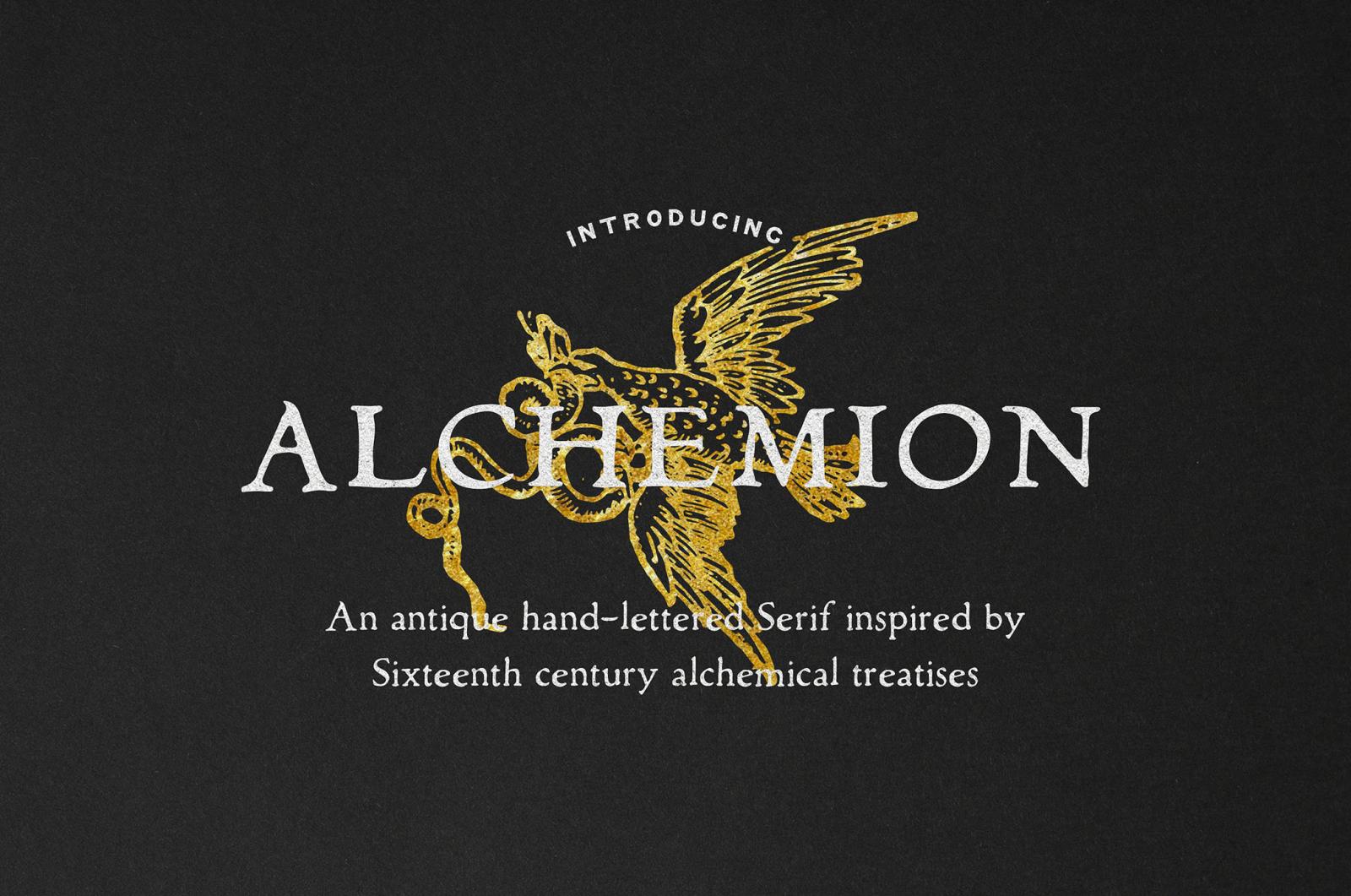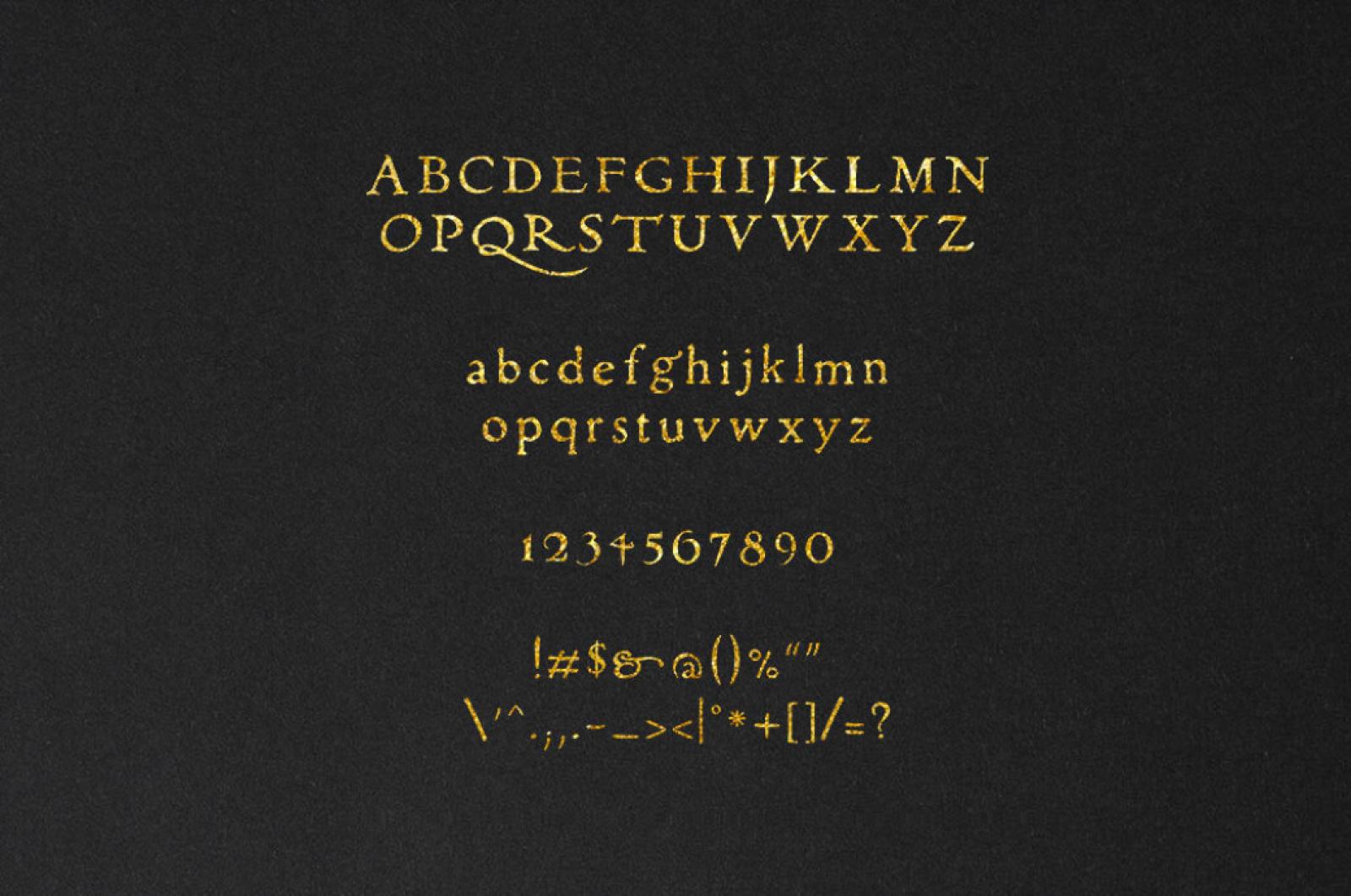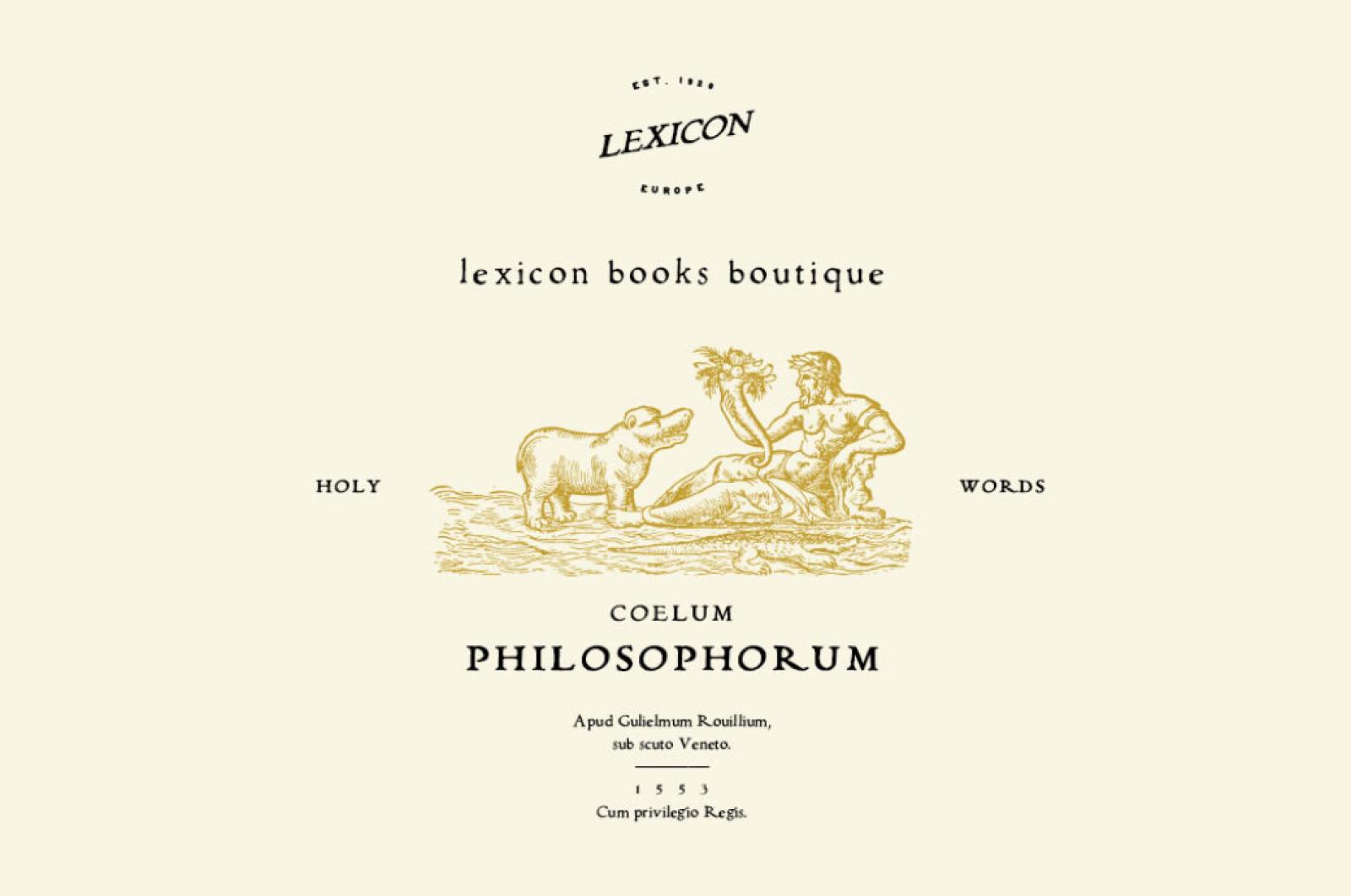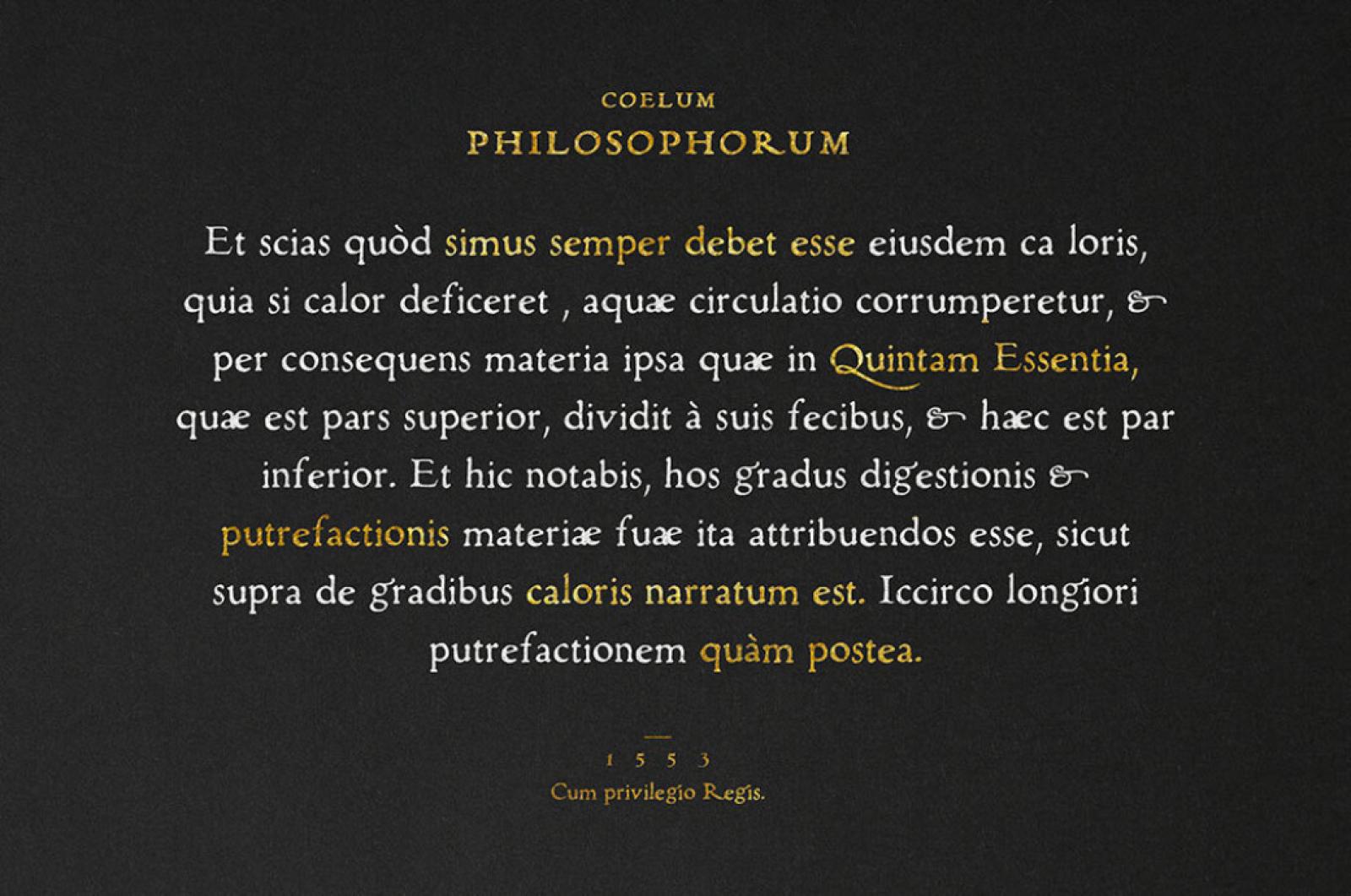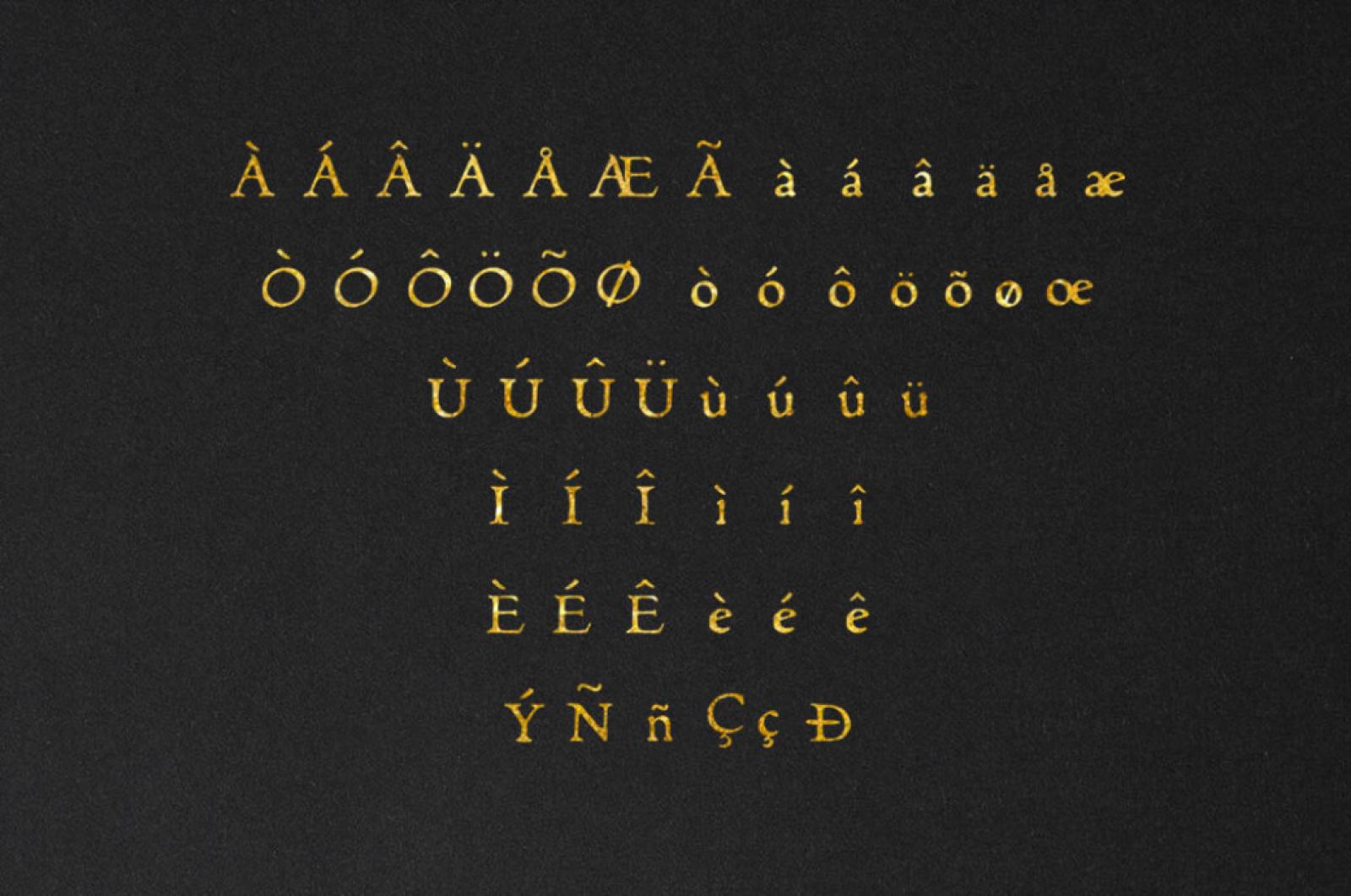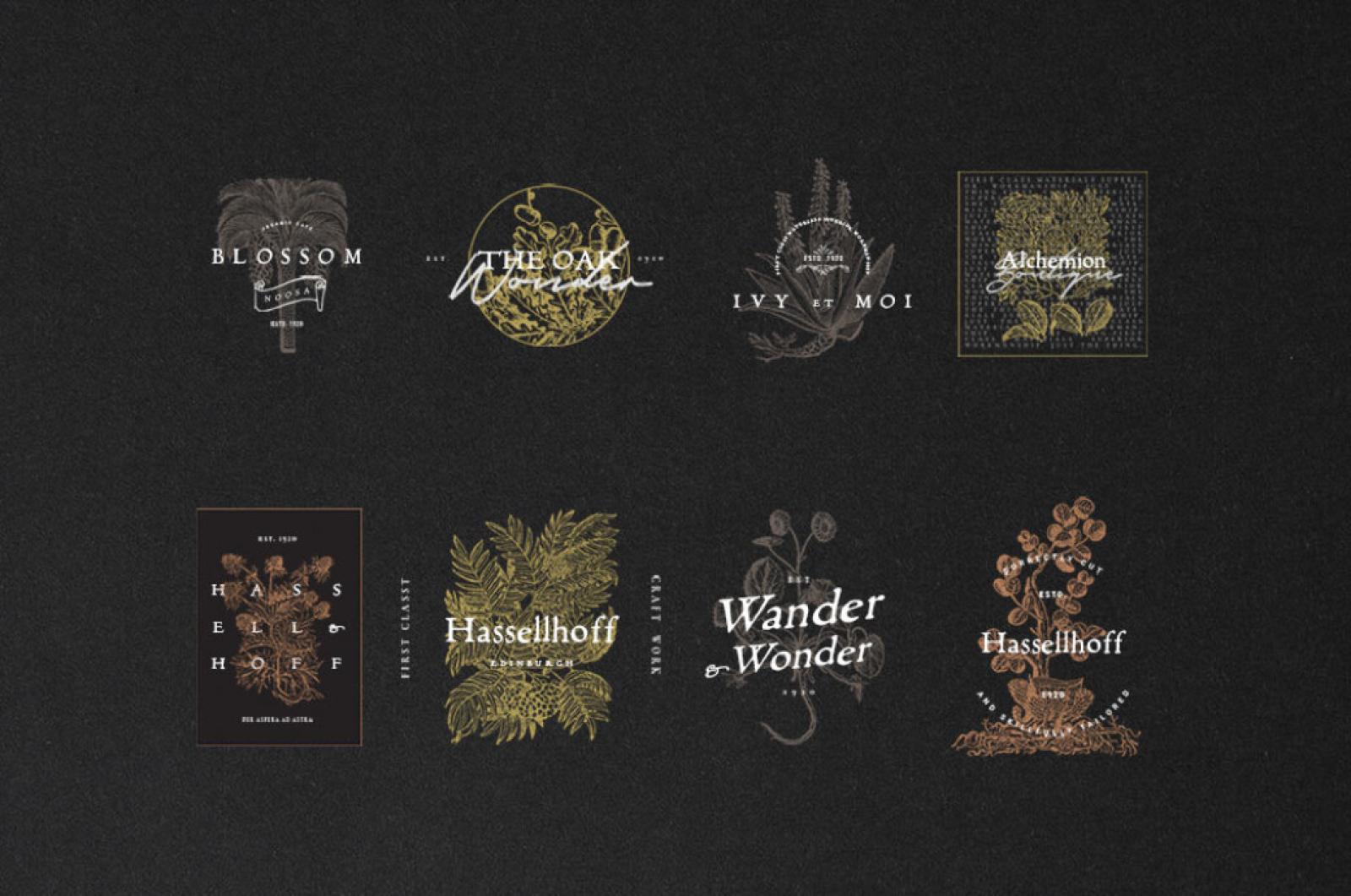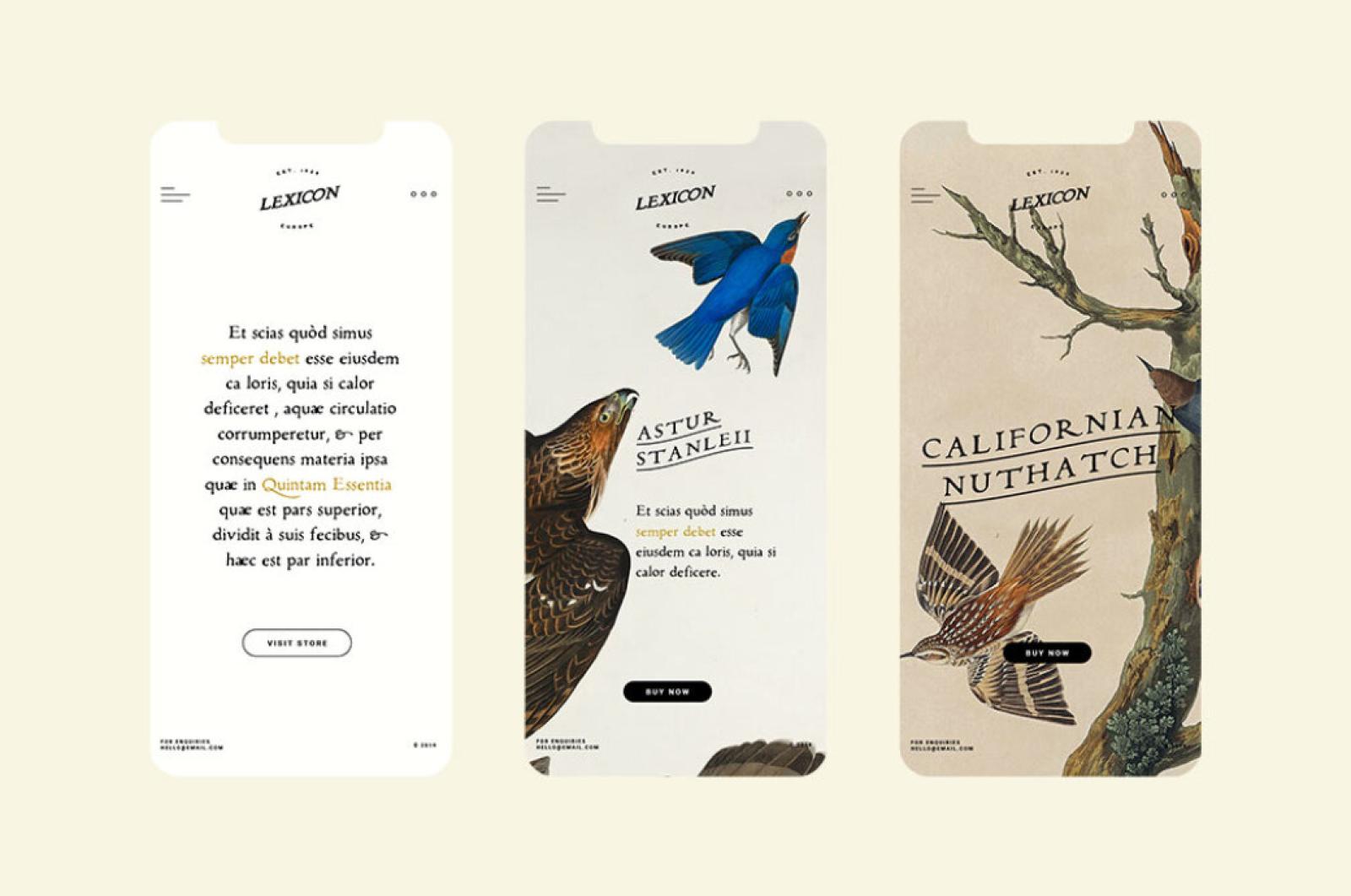
Alchemion Display Serif Font
Behold treasure brought from the 16th-century alchemy lab. The sans serif came right from the ancient books with mysterious formulas. Fathom the magic typography!
Alchemion speaks many languages and has all the required numbers and punctuation. Through its poignancy, it speaks directly to your heart, so your logotypes, invitations, and labels won't pass unnoticed. Add some included characters and your composition will be flawless!